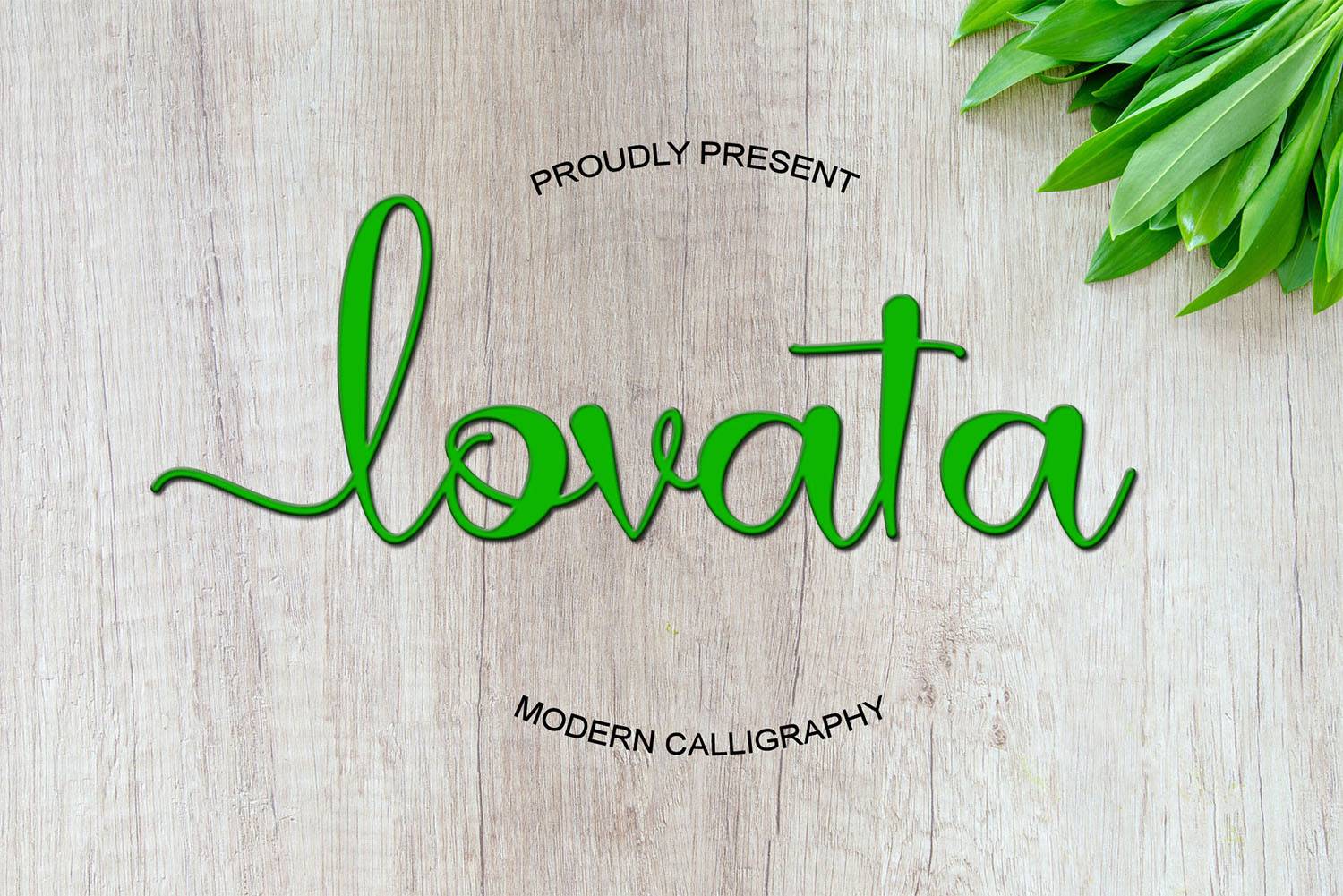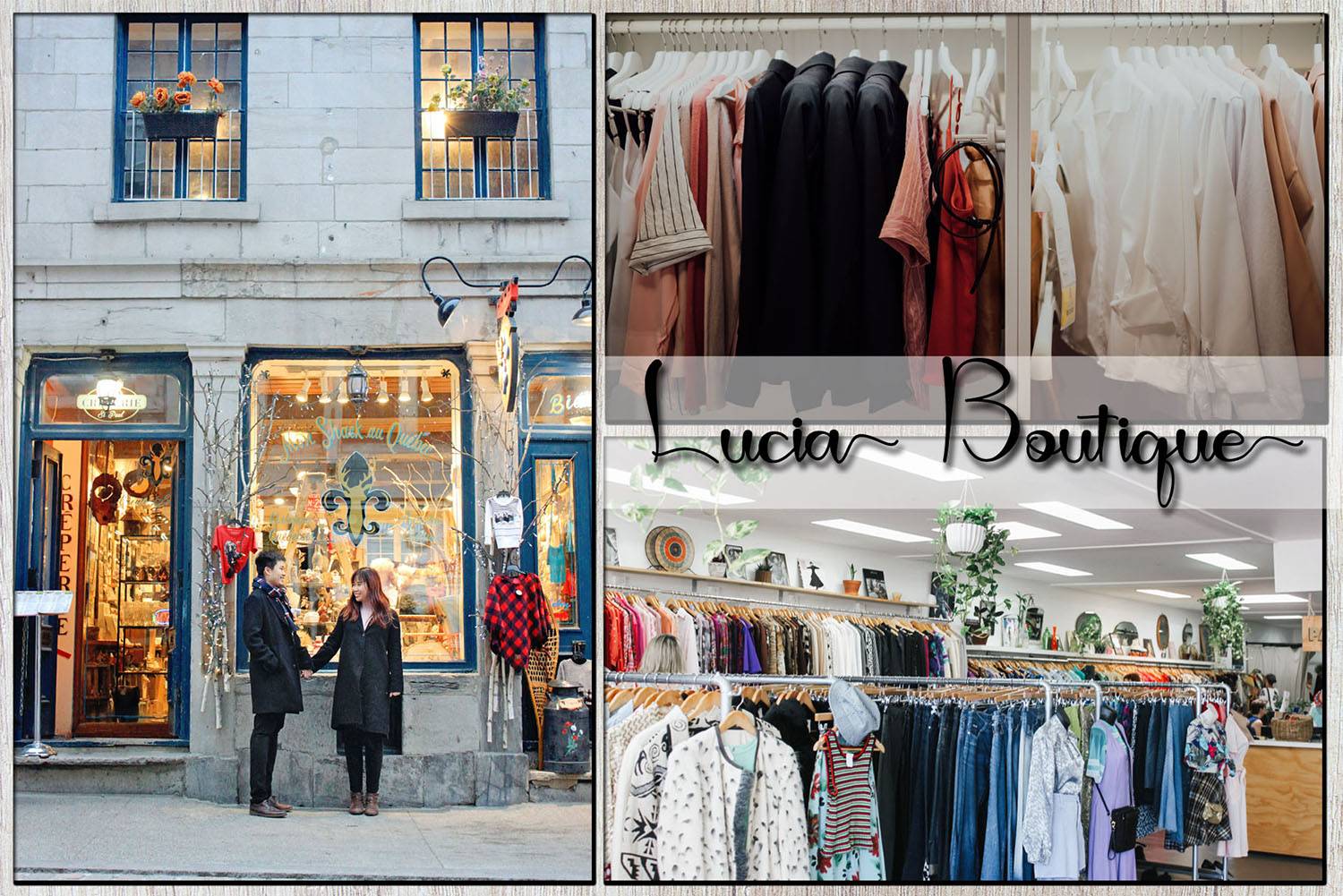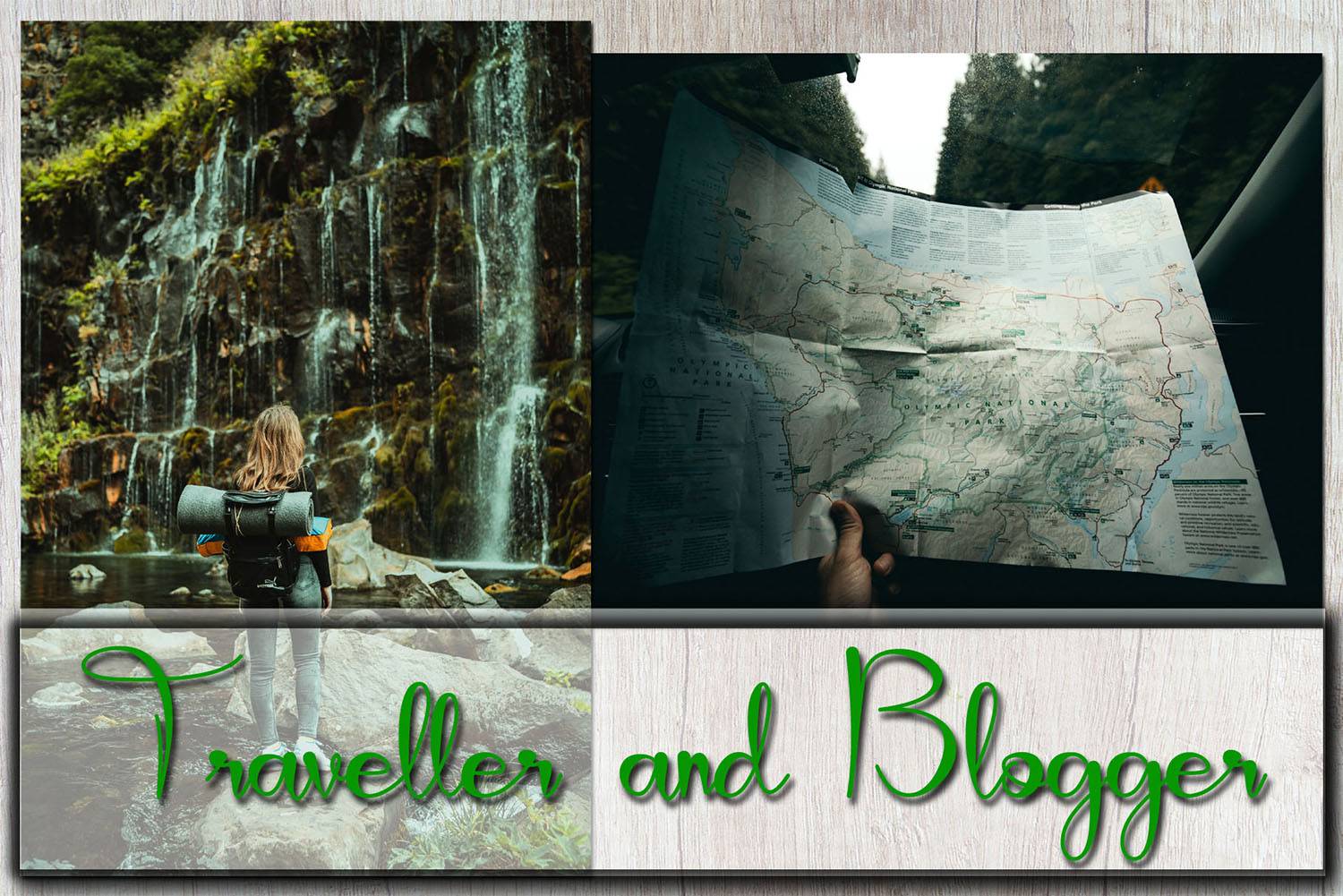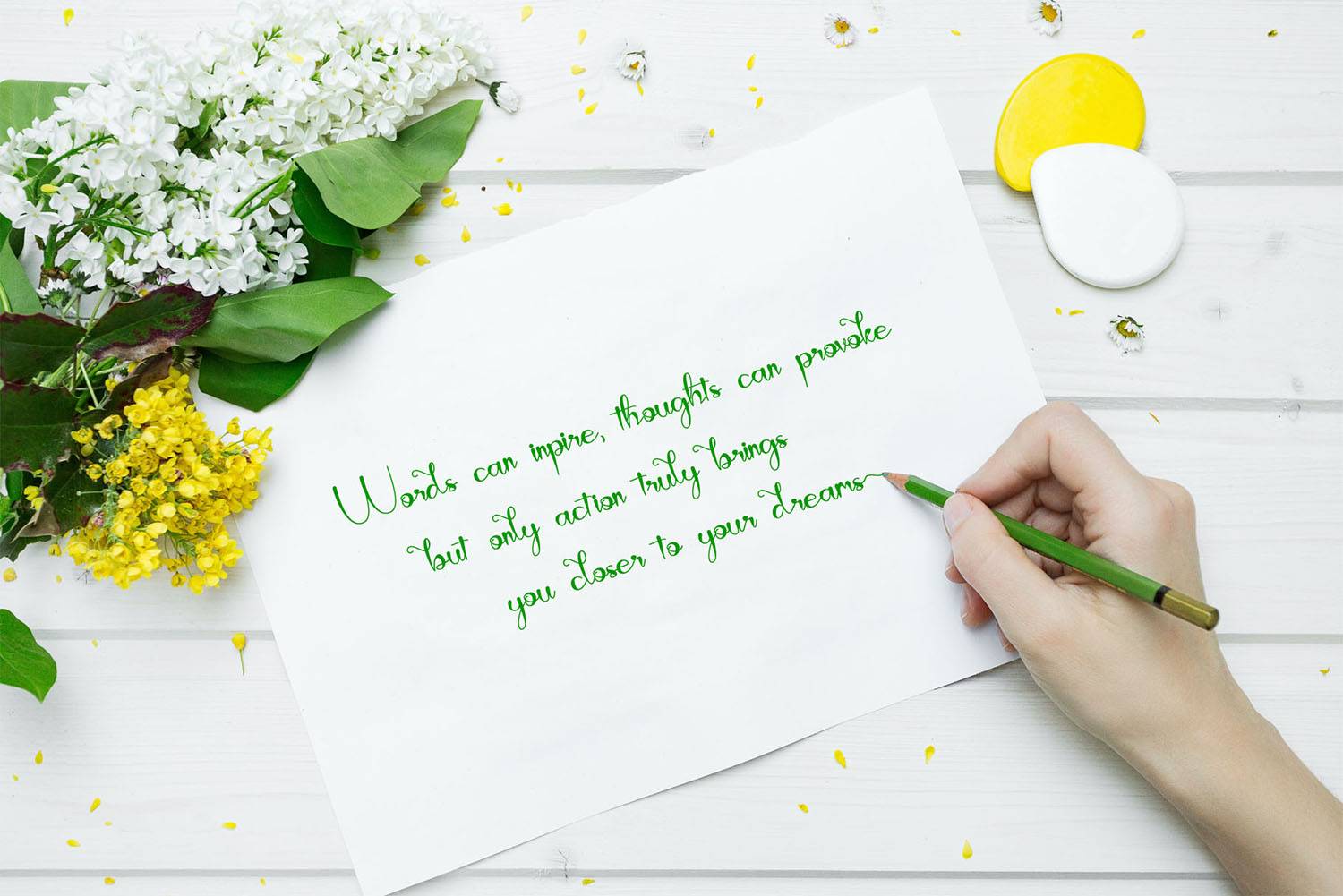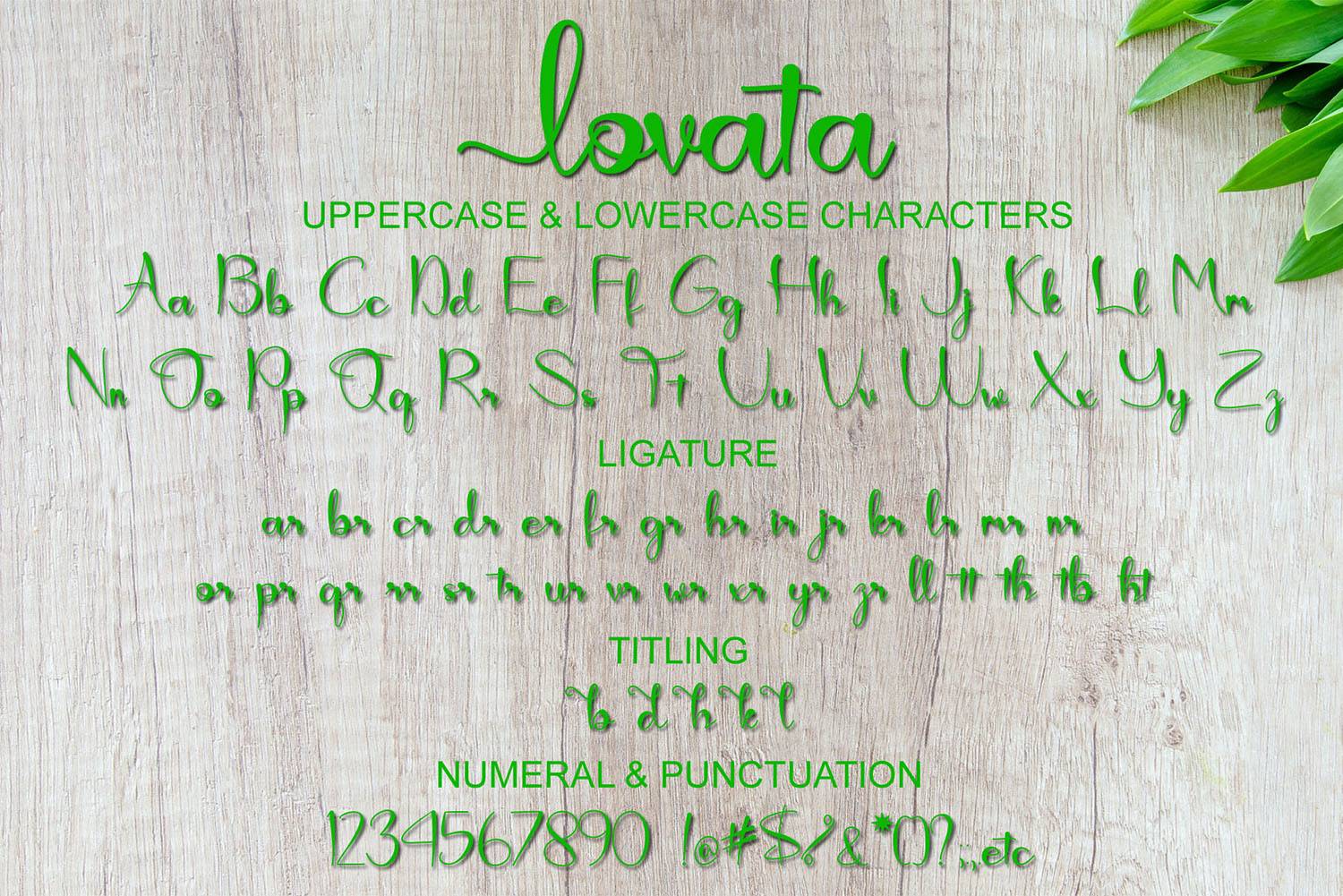
Lovata is a delicate, handwritten script font with a whimsical and playful character, featuring thin, fluid strokes and charming loops that create a light, elegant feel. Its narrow, airy letterforms and graceful curves make it perfect for adding a personal, artistic touch to invitations, branding, and creative projects that want to convey friendliness and creativity. Lovata works especially well in headlines or decorative text where its unique style can truly stand out.
Lovata Font
About Lovata Font
| Font family | Lovata Font |
| Designer | Vincentius Kriswandono |
| Trademark | Jonathan Studio |